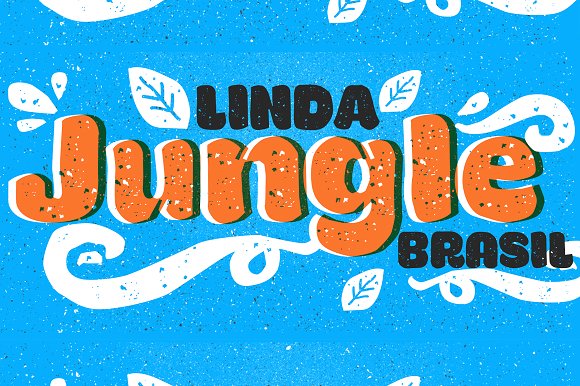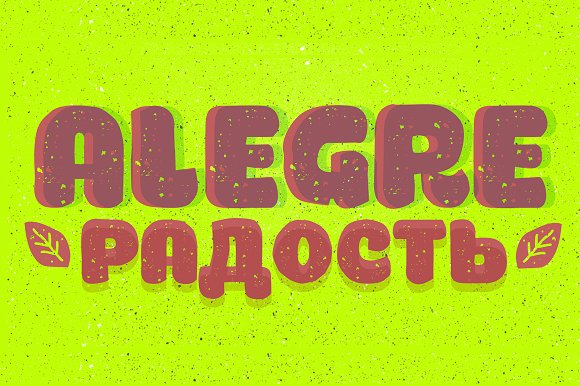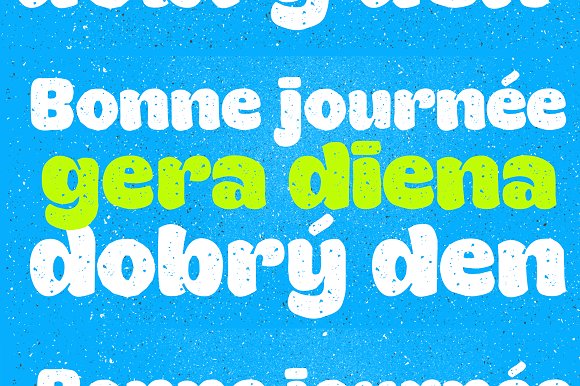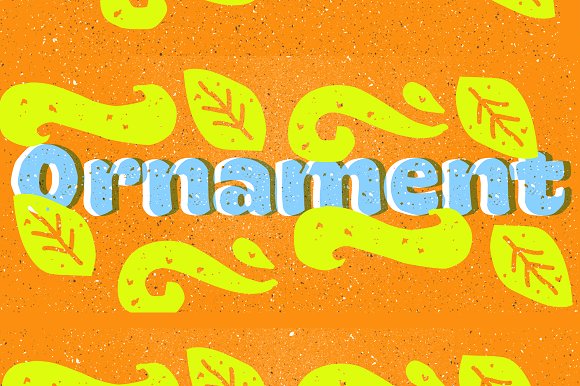
Introduction to Konga Rock Font
Have you ever been in the middle of a creative project, struggling to find the perfect font to bring your ideas to life? That’s exactly where I found myself a few months ago, until I stumbled upon the Konga Rock Font – a game-changing design resource that transformed my entire workflow.
The Konga Rock Font, created by the talented Rodrigo Araya Salas from Rodrigo Typo, is a rough version of the Konga Pro font that’s packed with ornaments and unique design elements. What I love most about this font is its versatility – it’s perfect for designers who want to add a touch of sophistication and personality to their high-quality designs.
With its free download option and transparent background, the Konga Rock Font is a valuable asset for any creative project. Whether you’re a seasoned designer or just starting out, this font is sure to inspire your next big idea.
Key Features of Konga Rock Font
- High-quality, bold design ideal for creative projects and graphic design.
- Features a transparent background, allowing for seamless integration into any design.
- Includes a range of glyphs and characters to support various languages and alphabets.
- Designed with a unique, rock-inspired aesthetic that adds a touch of edginess to any design.
Honest Review: Konga Rock Font
I recently had the chance to work with the Konga Rock Font, and I must say it’s been a great addition to my design resource collection. This font is perfect for creative projects where you want to add a touch of ruggedness and sophistication. Its high quality makes it a great choice for professional designs.
- What works well: ✨ The Konga Rock Font has a unique and versatile design that can be used in a variety of contexts, from headlines to body text. Its transparent background makes it easy to combine with other elements.
- What works well: ✨ The font is highly customizable, allowing you to adjust its weight, style, and size to suit your design needs.
One of the limitations I found is that the font may not be suitable for very small text sizes, as the details can get lost. Additionally, the font may not be as easily readable in certain screen resolutions.
Overall, I’m impressed with the Konga Rock Font and would definitely recommend it as a high-quality design resource. With its unique design and high level of customization, it’s perfect for designers looking to add some creativity to their projects. A free download is available, making it an even more attractive option.
The Konga Rock Font is a high-quality design resource ideal for creative projects that require a unique and eye-catching aesthetic. This font is available for free download with a transparent background, making it perfect for various applications.
Tips for Getting the Most Out of Konga Rock Font
To get the most out of the Konga Rock Font, consider the following tips:
- Experiment with different font sizes and styles to achieve the desired effect.
- Combine the Konga Rock Font with other design elements to create a unique aesthetic.
- Use the font in creative ways, such as creating custom headings or titles.